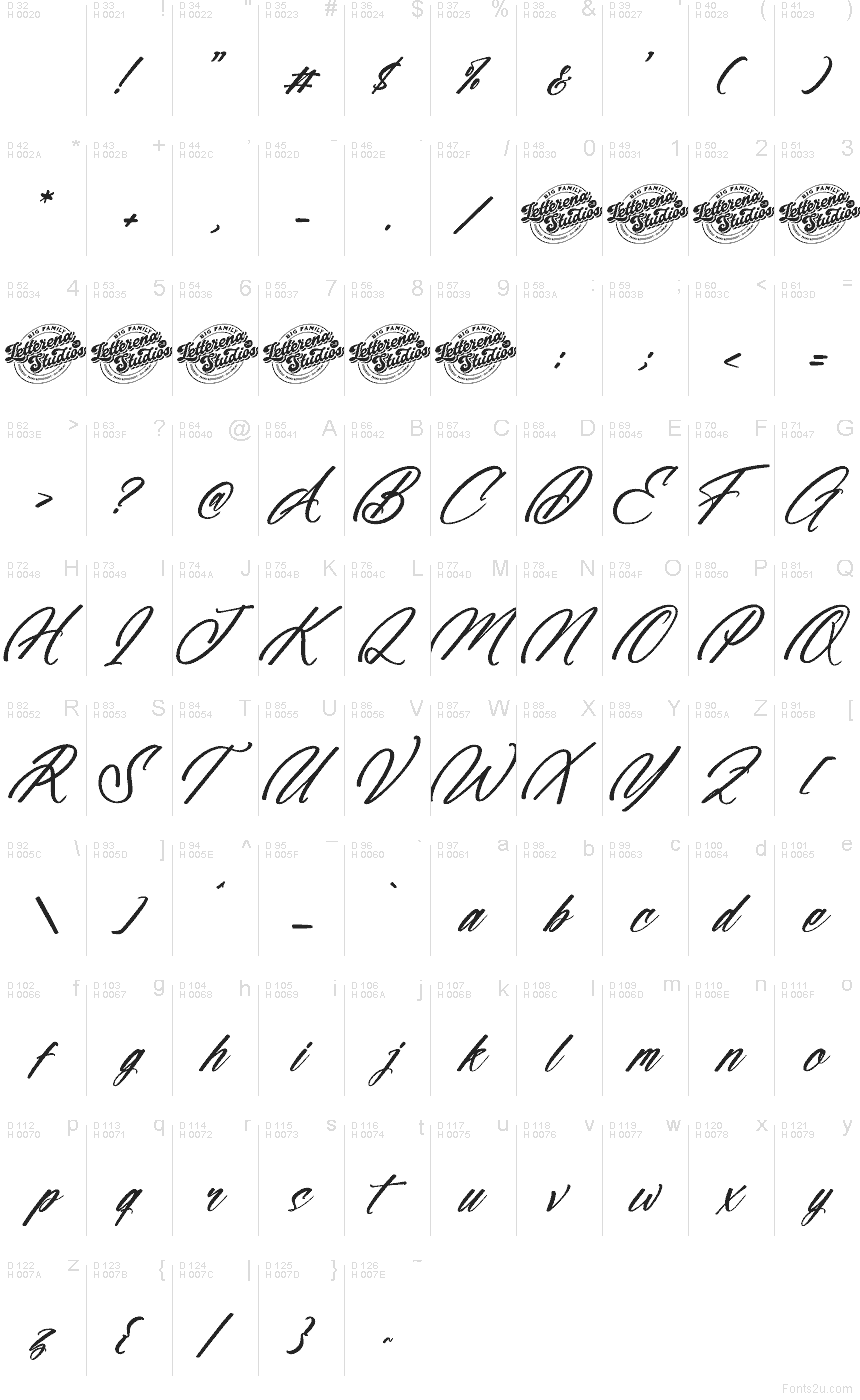
Majestric DEMO VERSION Italic
Majestric Italic font by Letterena Studios is a free calligraphy typeface with a fast, inky energy that still feels refined. Its tall, slanted letters sweep across the line in fluid strokes, like a signature written with a slightly flexible brush pen. The texture is smooth yet expressive, with lively curves and just enough contrast to suggest movement rather than fussiness.
Using Majestric Italic, your text instantly feels personal and high-end, making this free font a natural fit for wedding invitations, boutique logos, product packaging, social media headers, quote graphics, personal branding, and digital signatures. It shines at larger sizes where the flowing connections can breathe; pair it with a clean sans serif from the Majestric family or a neutral grotesk for supporting text to keep the script in the spotlight.